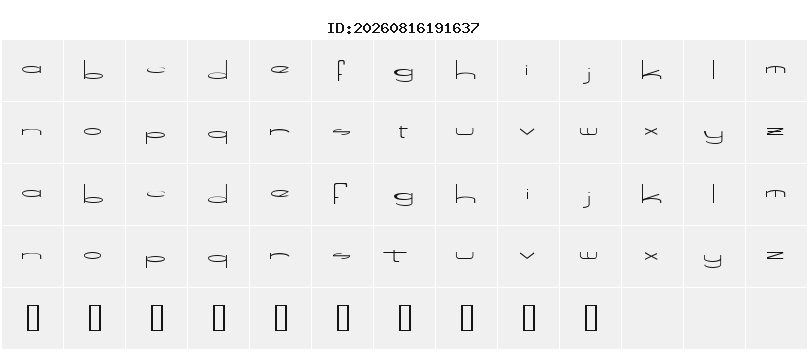
Speed Bowling Preview
• Font Name: Speed Bowling
• Full Font Name: Speed Bowling
About Speed Bowling.ttf
Speed Bowling.ttf is a modern, elegant sans-serif font designed for ultimate readability and visual harmony. Perfect for branding, headlines, web design, and print materials.